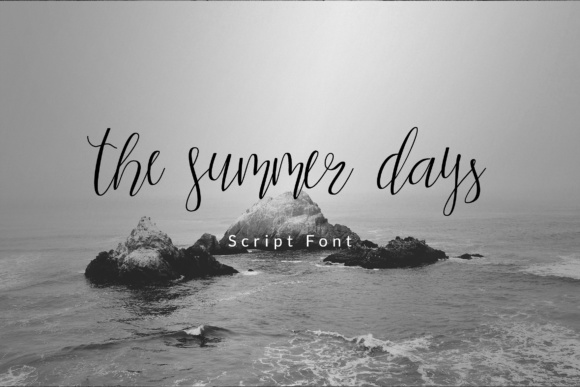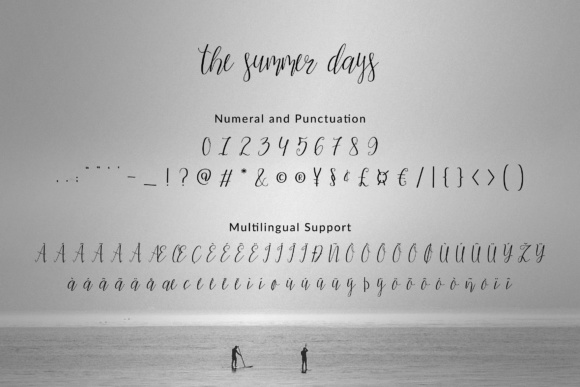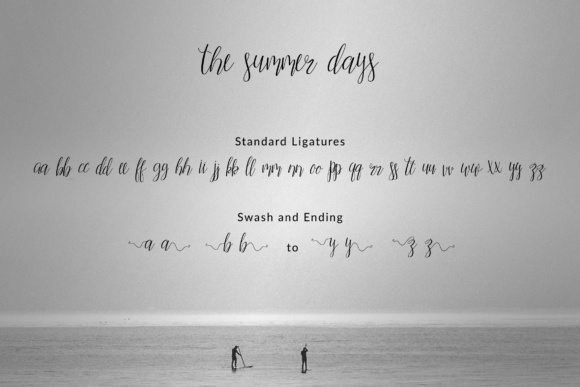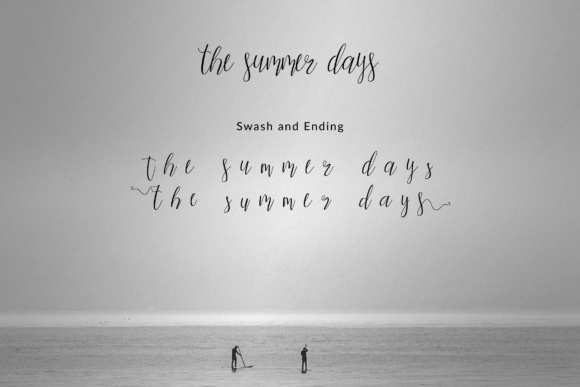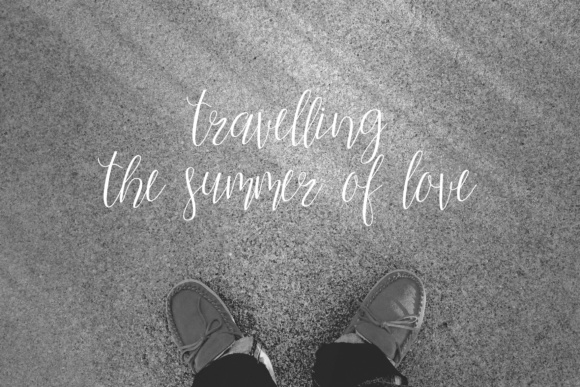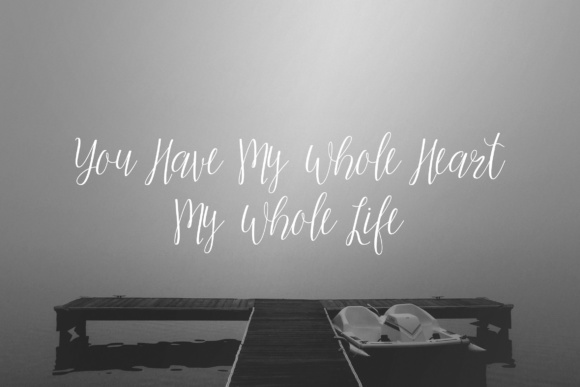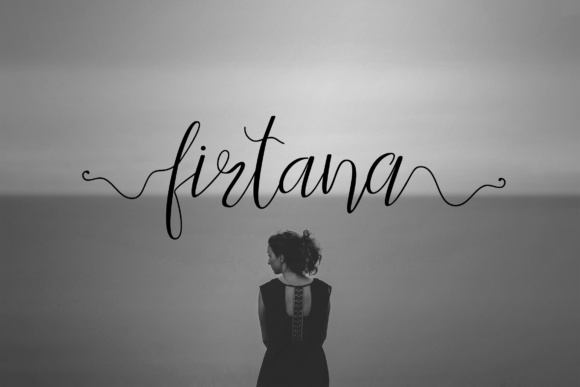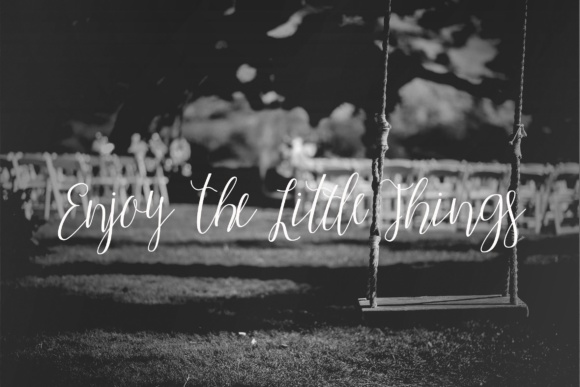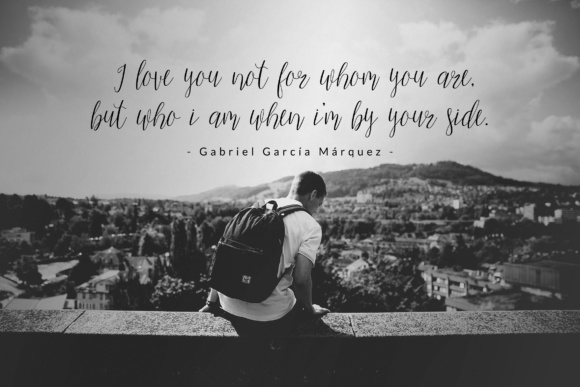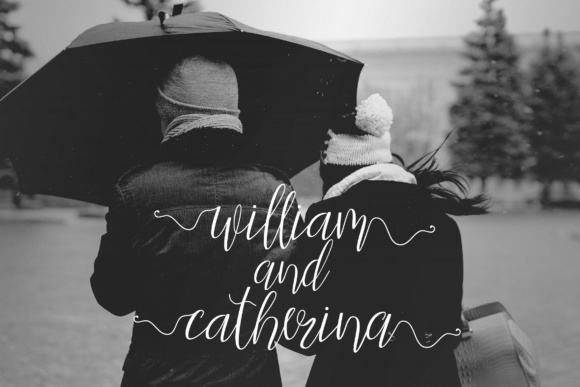
The Summer Days Script Font
About The Summer Days Script Font
The Summer Days is a beautiful script font. It’s perfect for blogging, social media, branding, magazines, portfolio, wedding invites and cards.